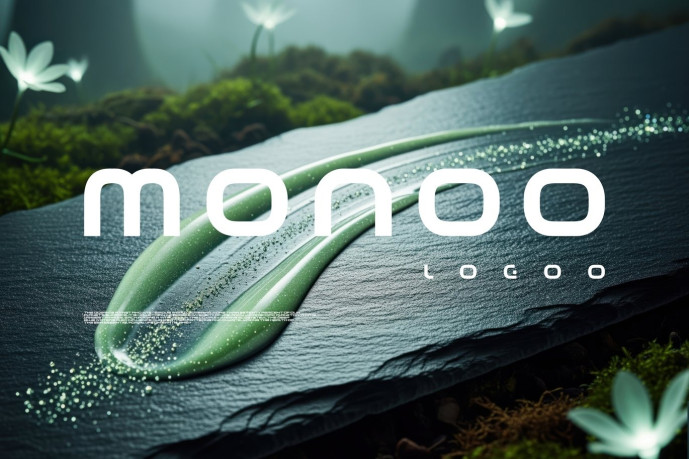
Monoo Font
Monoo Font – It feels remarkably grounded and contemporary, offering a sense of democratic accessibility where the message is never overshadowed by the medium. To the viewer, it suggests a personality that is straightforward